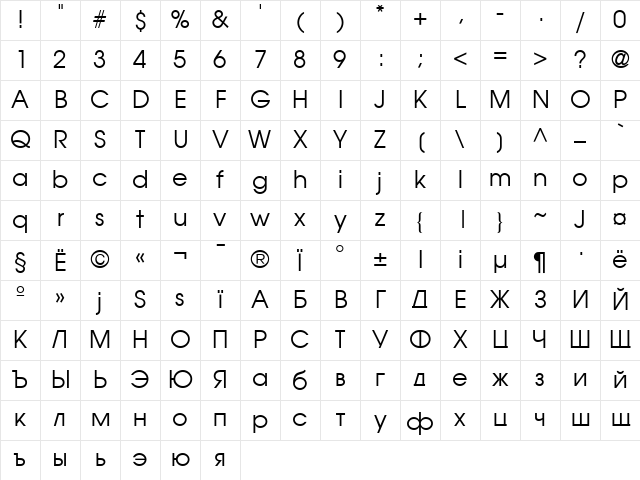
Complete AGAvantGardeCyr Book glyph index. Displaying only characters natively supported by AGAvantGardeCyr Book font.
AGAvantGardeCyr is a composed and adaptable typeface that performs quietly and consistently across a wide range of design contexts.